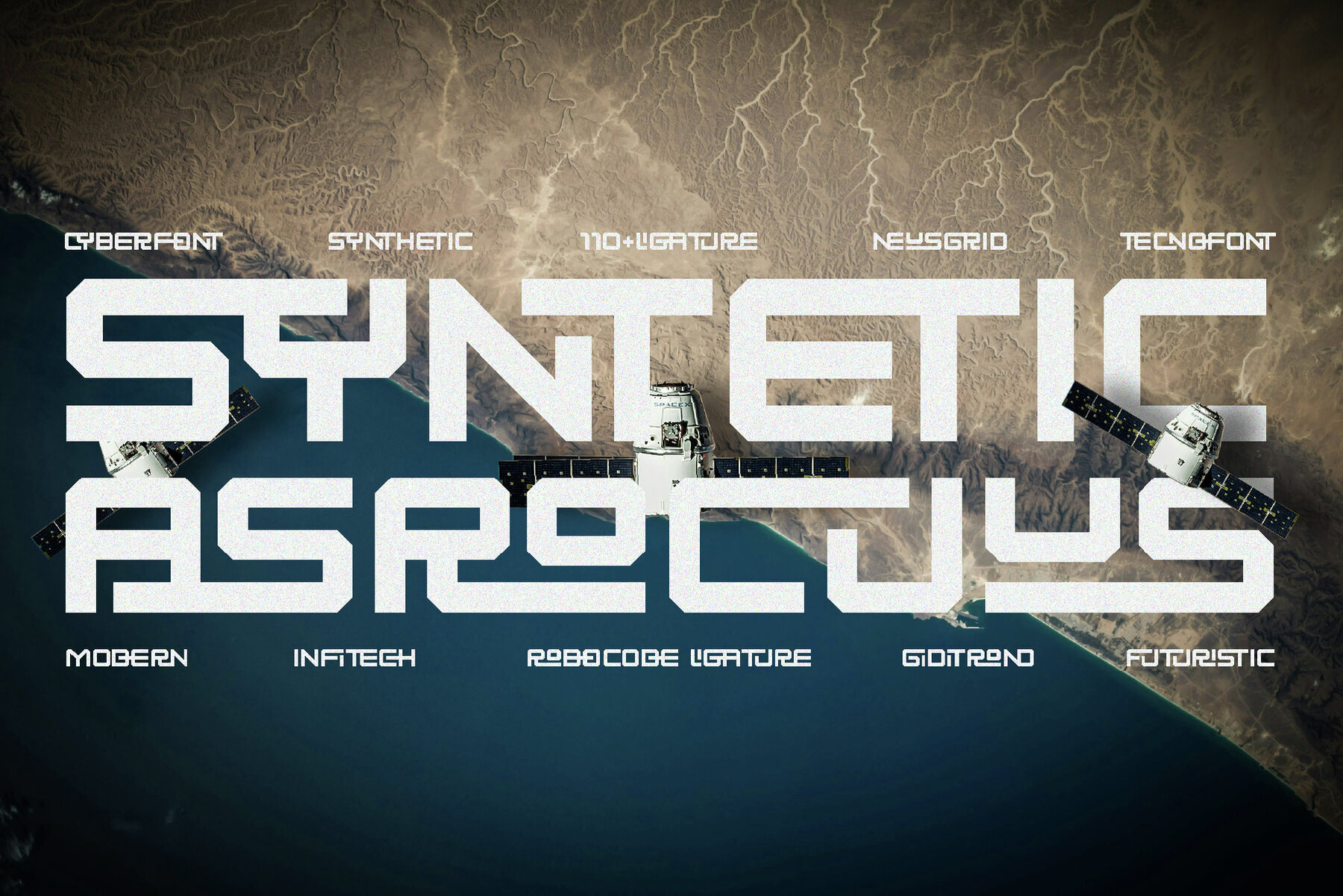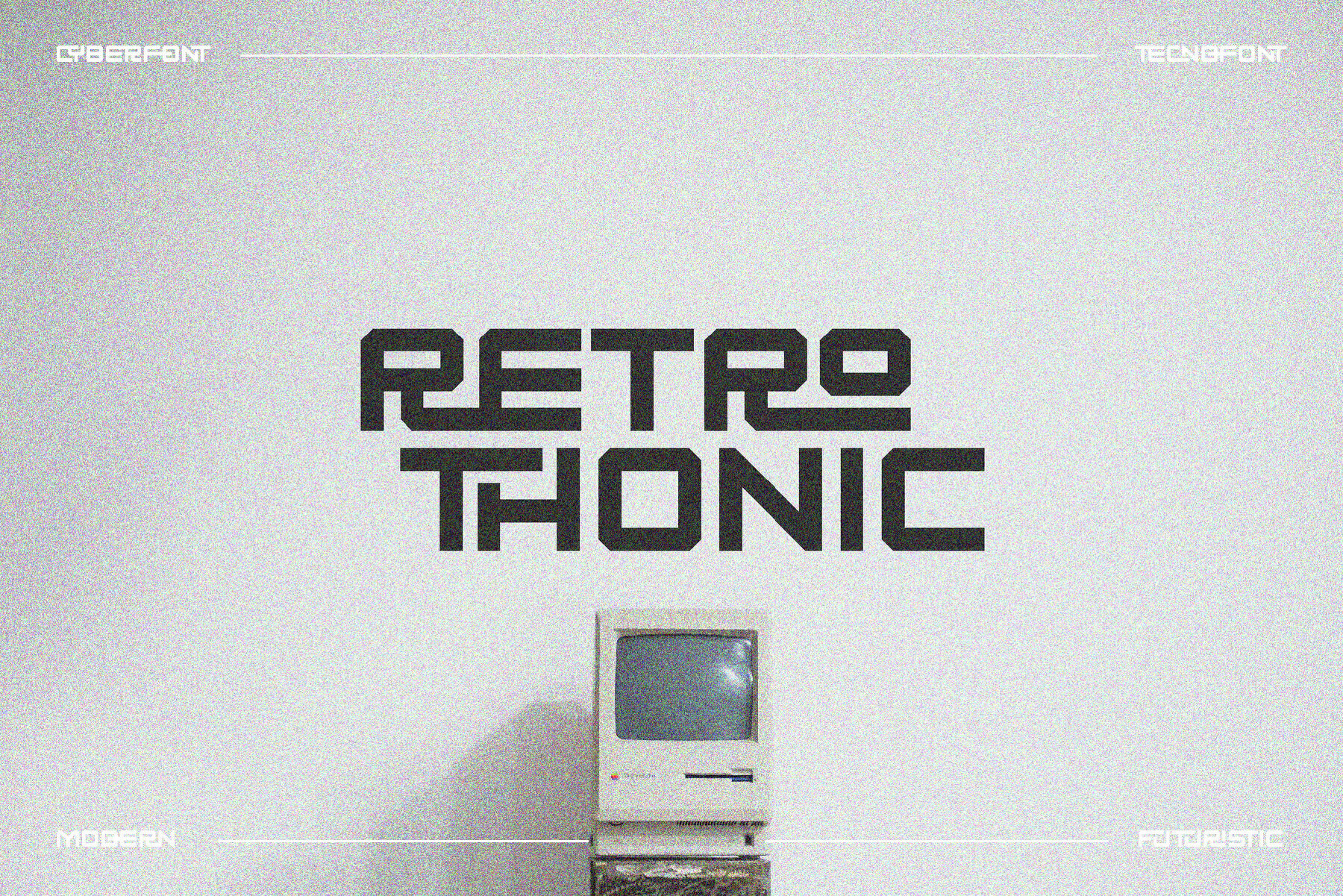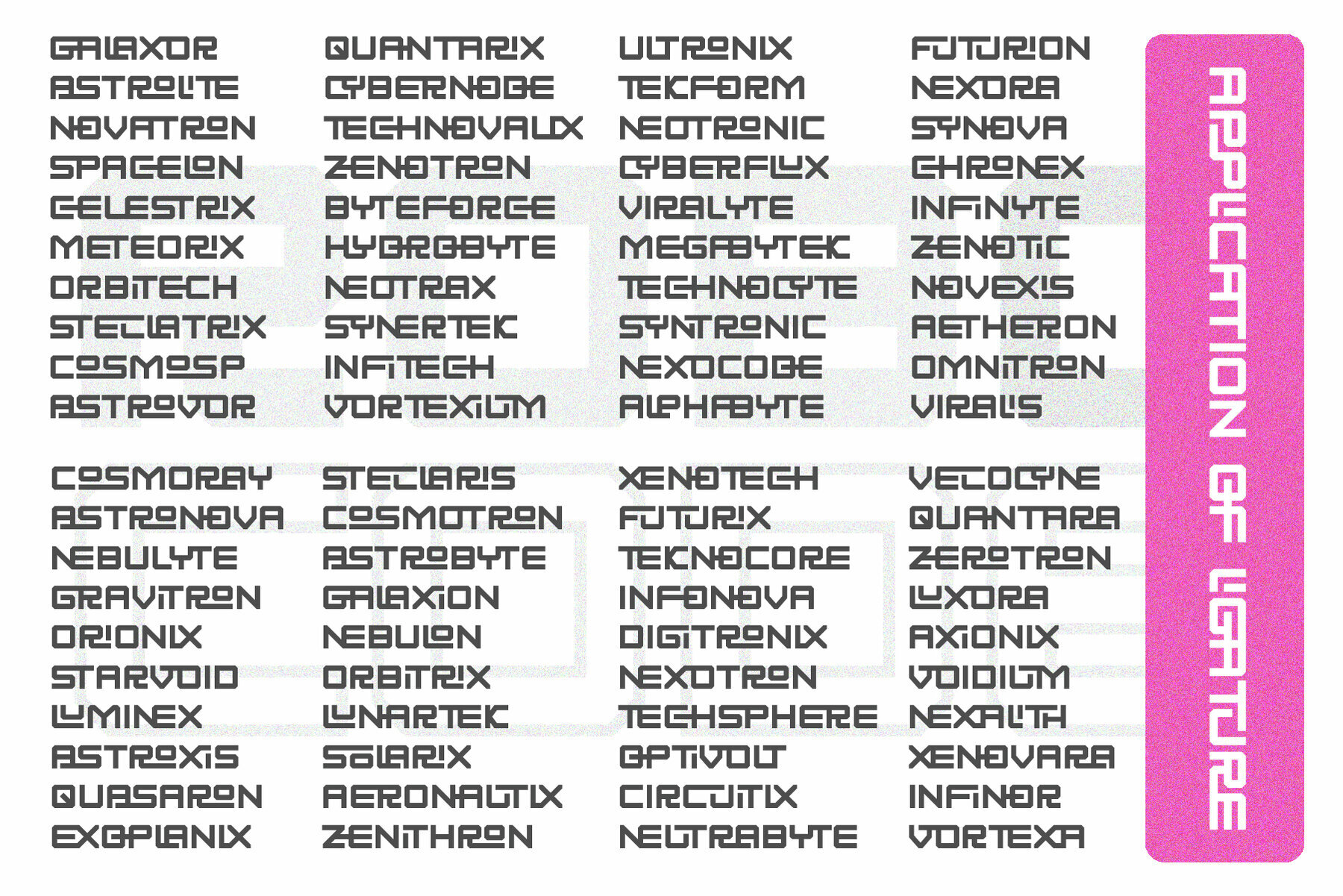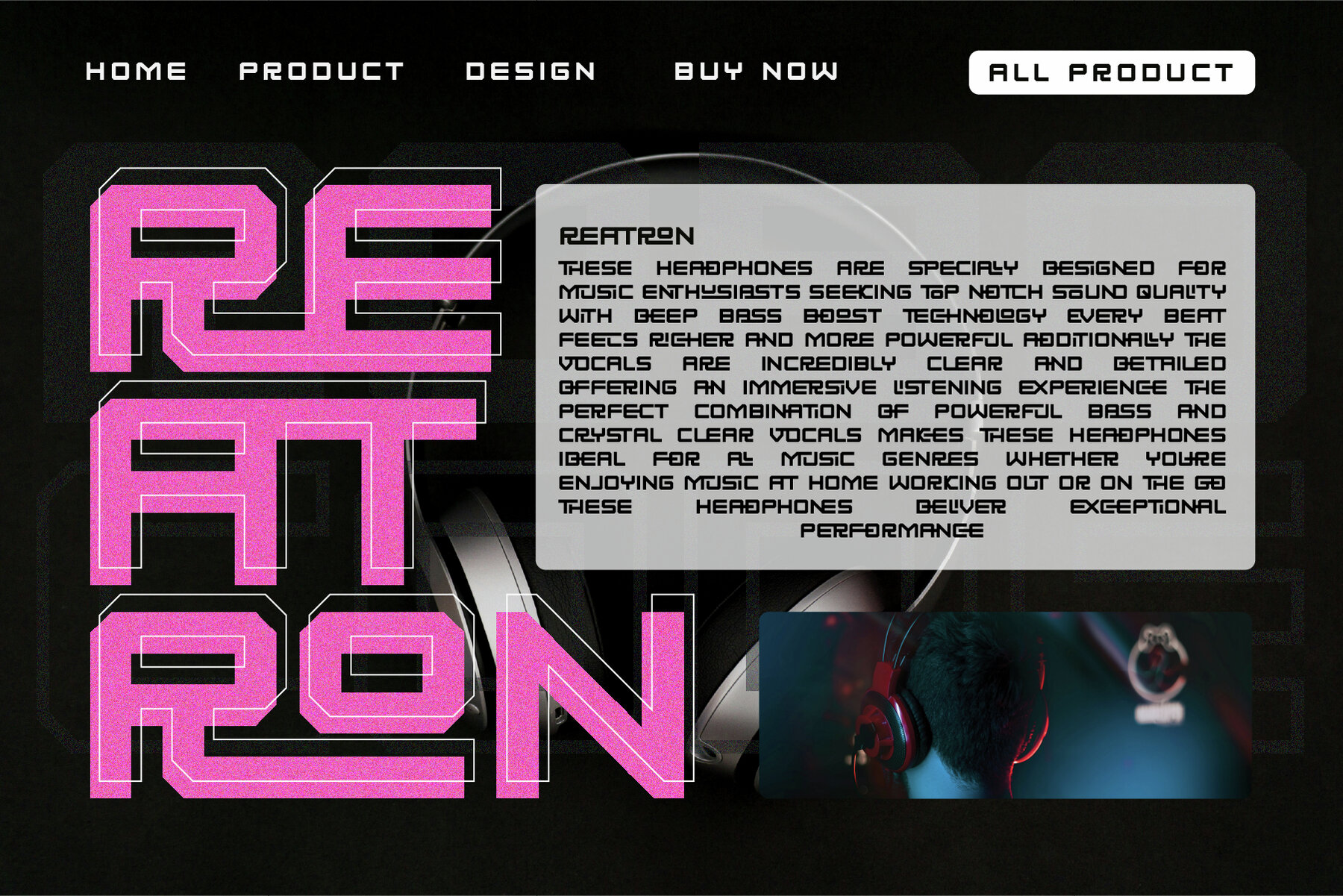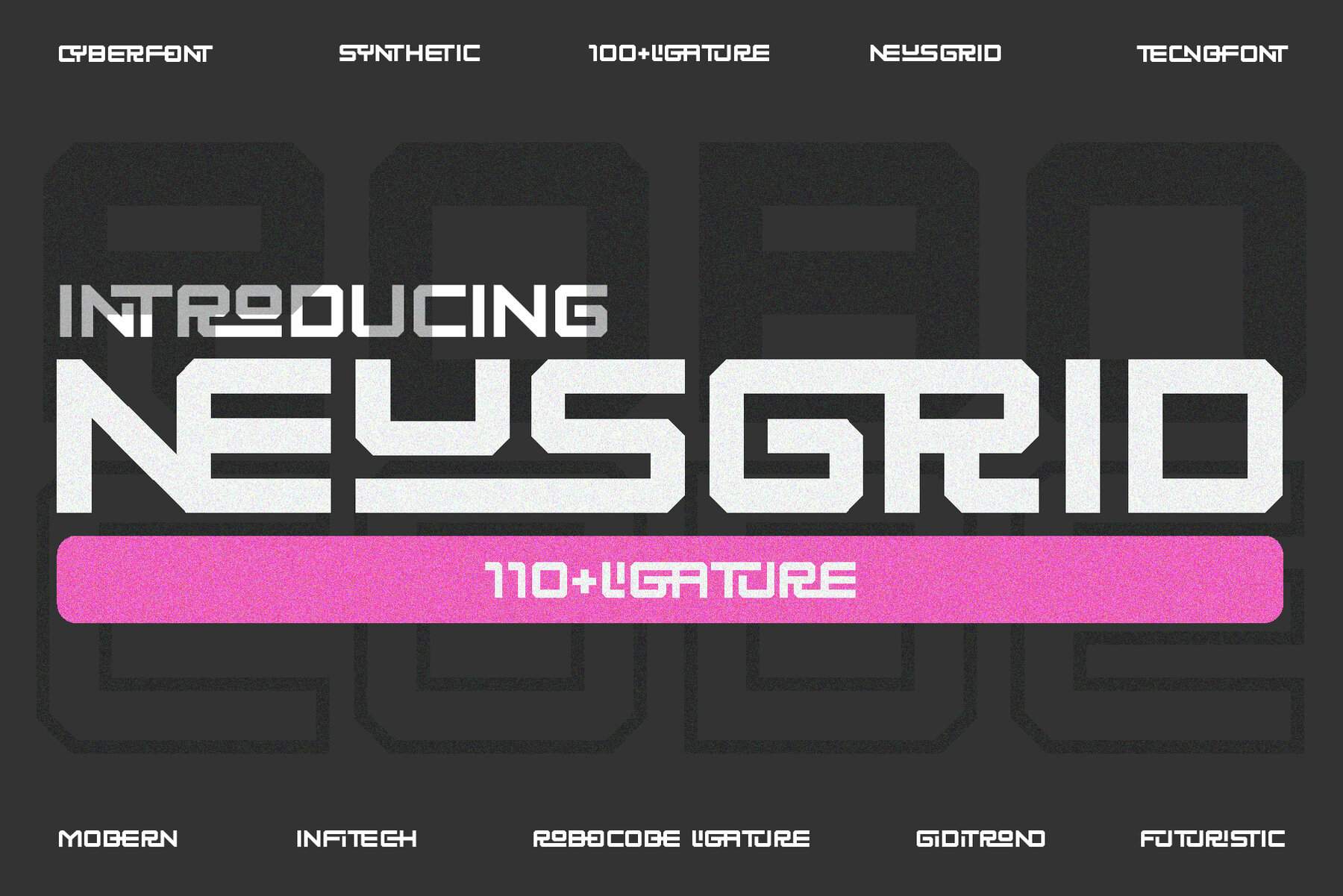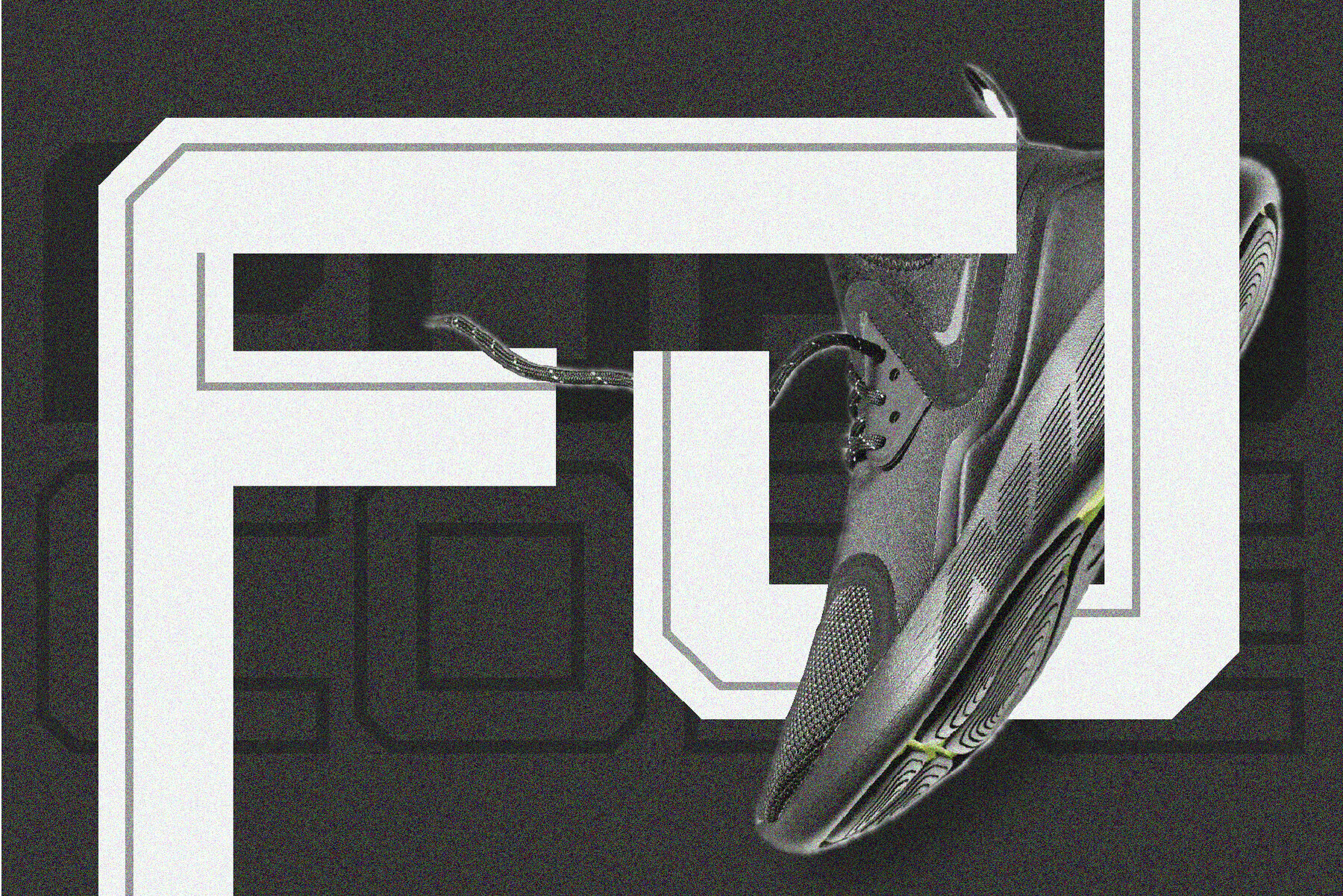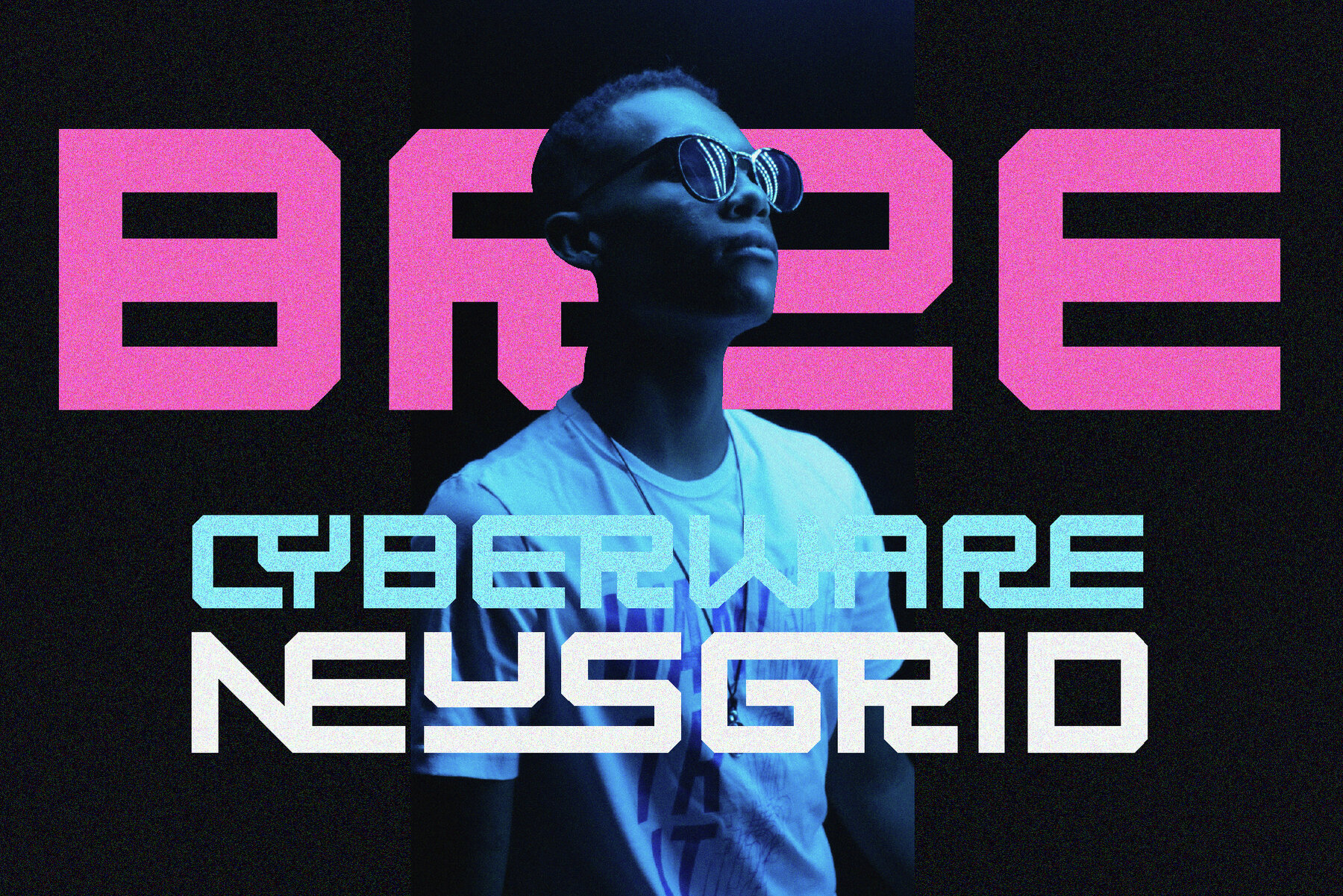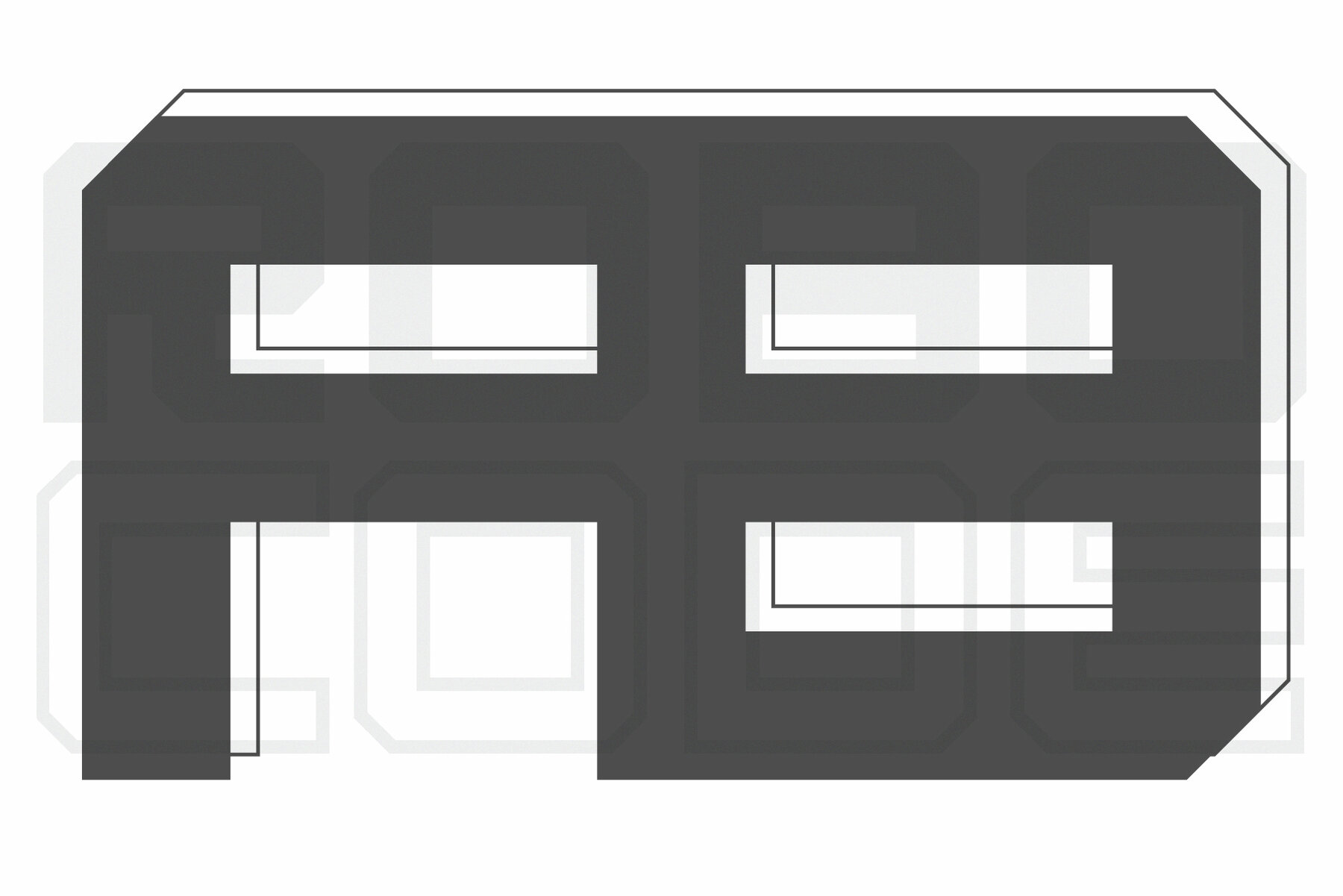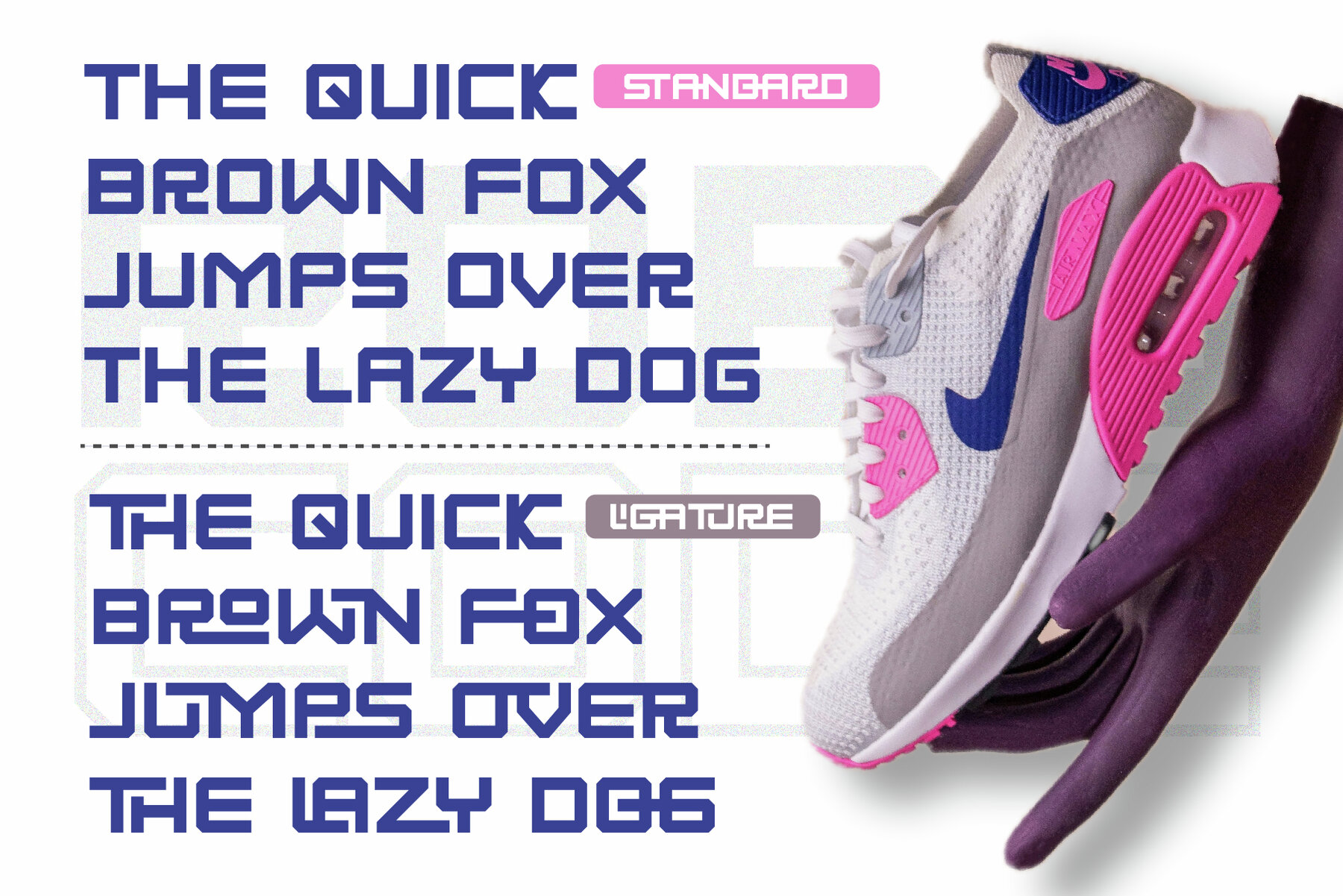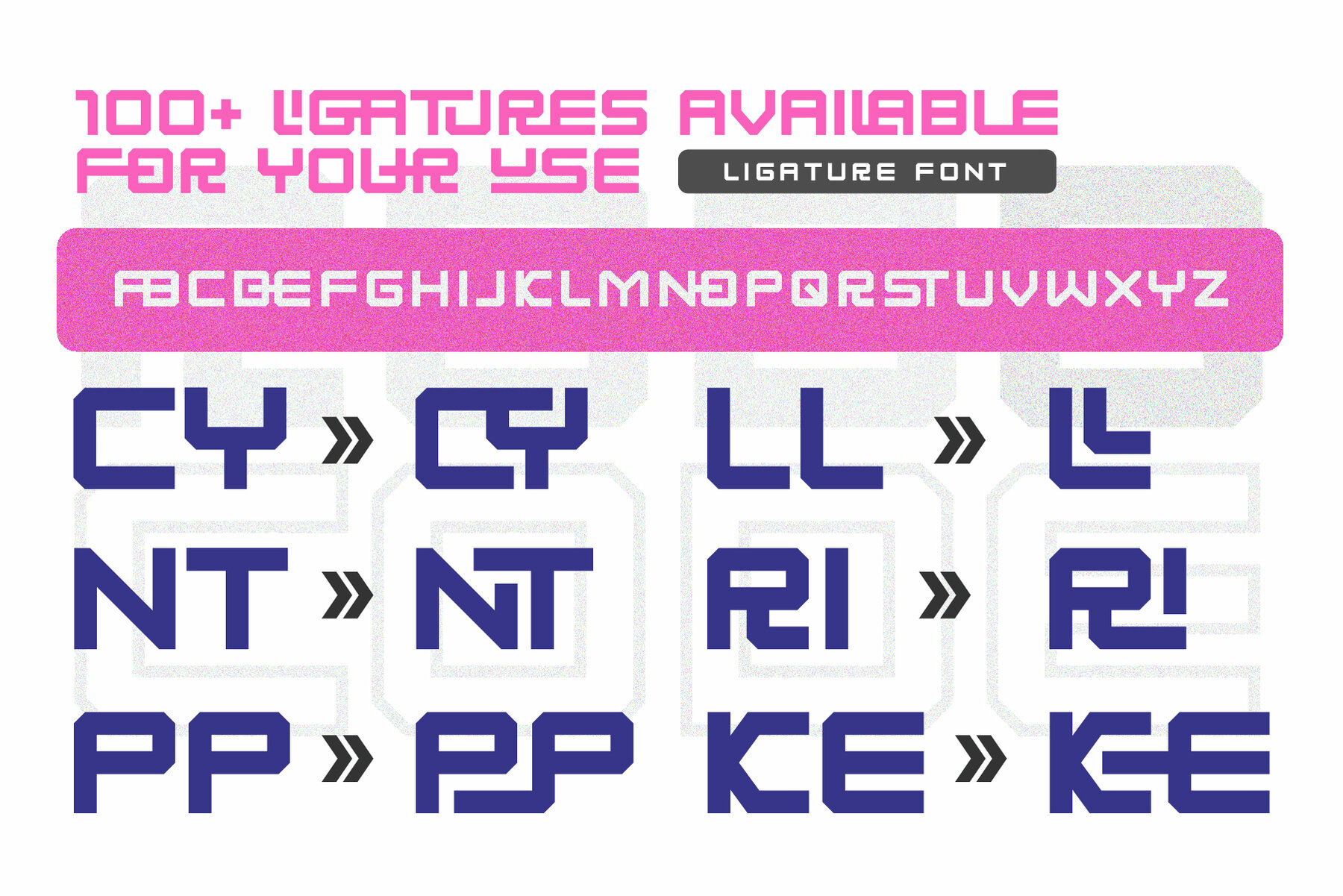
Syntetic Asrocuus Font
Syntetic Asrocuus
Syntetic Asrocuus is the epitome of a bold, symmetrical, futuristic ligature font designed to give your projects a compelling techno aesthetic. Crafted with sleek, geometric shapes, it delivers a modern vibe that embodies the essence of technology and the future. With over 110 meticulously designed ligatures, Syntetic Asrocuus offers a smooth, dynamic, and visually appealing reading experience. Elevate your typography with Syntetic Asrocuus where boldness and timeless design converge in a unique and expressive font choice.Syntetic Asrocuus